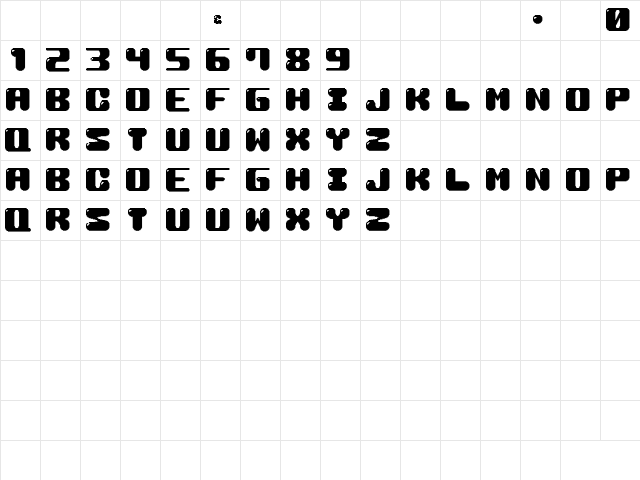
M19_COCONUT MILK Regular
Design Context for M19_COCONUT MILK
M19_COCONUT MILK is a composed and adaptable typeface that performs quietly and consistently across a wide range of design contexts.
Pro Tip: Use M19_COCONUT MILK in both headline and body roles to test its range before committing to a single application.